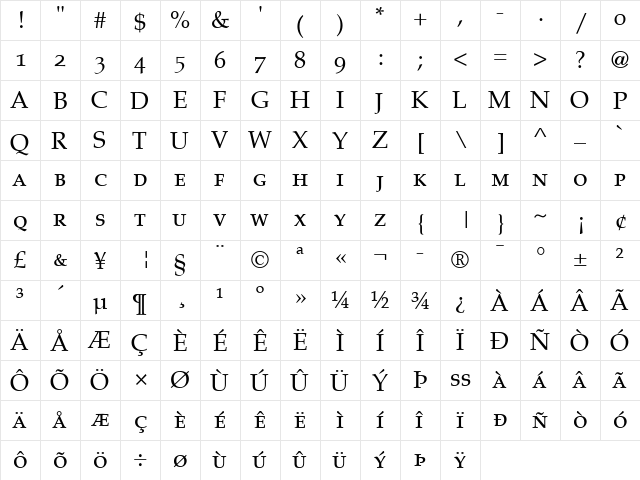
Palatino SC Regular
Design Context for Palatino SC Typeface
Palatino SC takes a measured approach to typography — its balanced proportions and neutral character make it a reliable workhorse for both digital and print work.
Pro Tip: Use Palatino SC in both headline and body roles to test its range before committing to a single application.